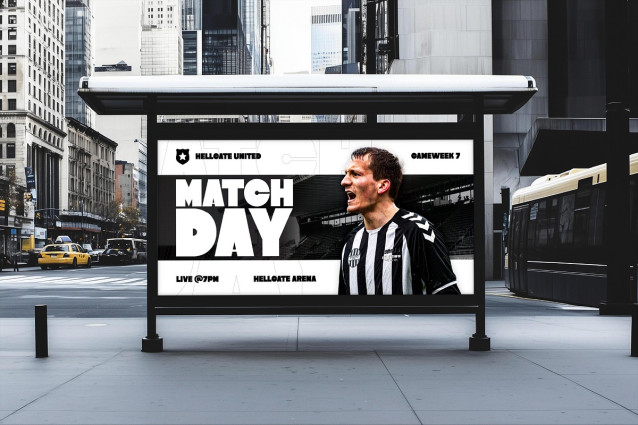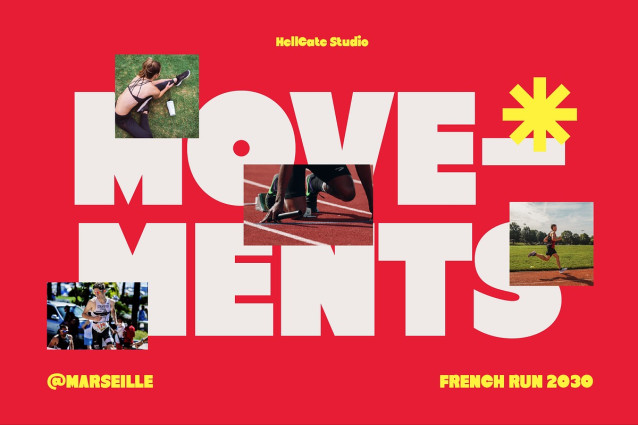
Kaplo Font
Kaplo Font – Modern Sans Display. Perfectly tailored to bring a touch of contemporary sophistication to your projects, this font thrives in modern, headline, and upscale themes. Its hassle-free customization allows for effortless modification of text and color, truly making this typeface your own. Rendered in high-quality OTF, Kaplo Modern Sans Display delivers a flawless, smooth look that will truly elevate your design ventures.